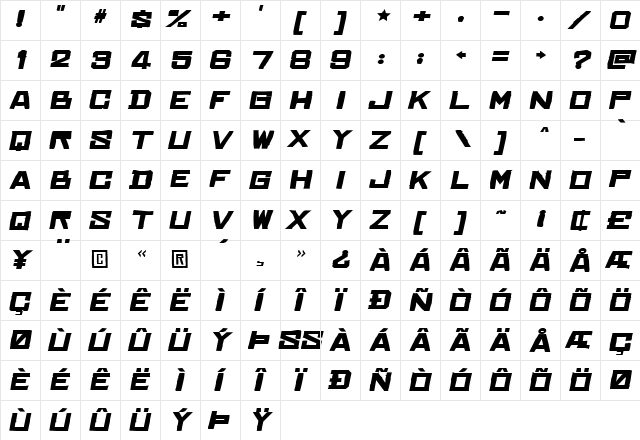
Chinese Rocks Fat Italic
Design Context for Chinese Rocks Fat Typeface
Chinese Rocks Fat offers clean, dependable letterforms without strong stylistic allegiance, making it a practical choice for designers who need flexibility. The slanted form adds forward momentum and visual energy.
Pro Tip: Try Chinese Rocks Fat for annotation and caption copy alongside an upright companion — the contrast in angle creates a dynamic but ordered typographic system.